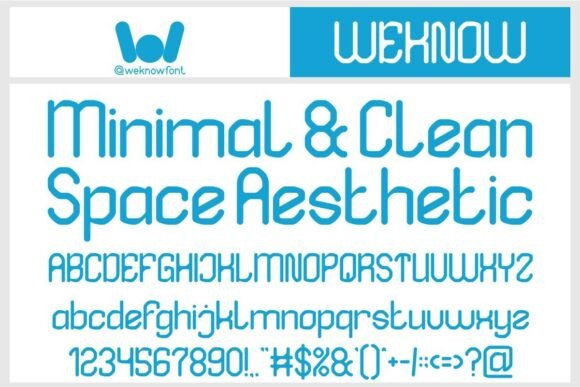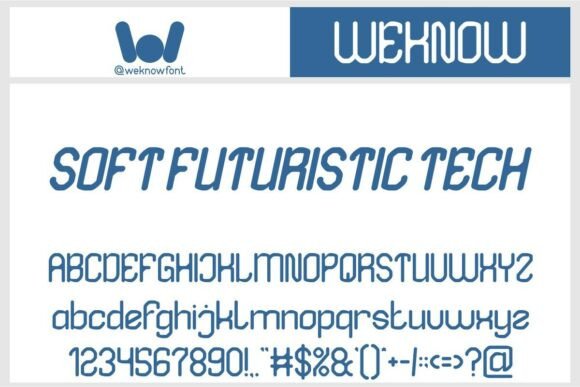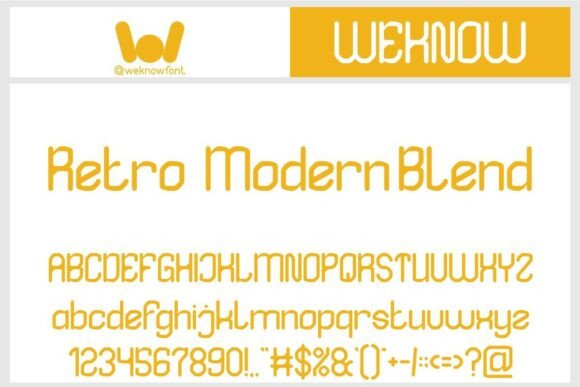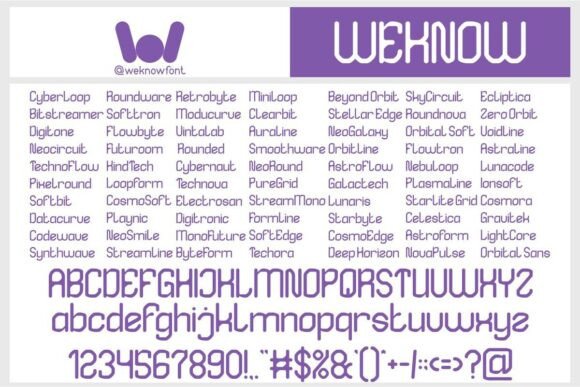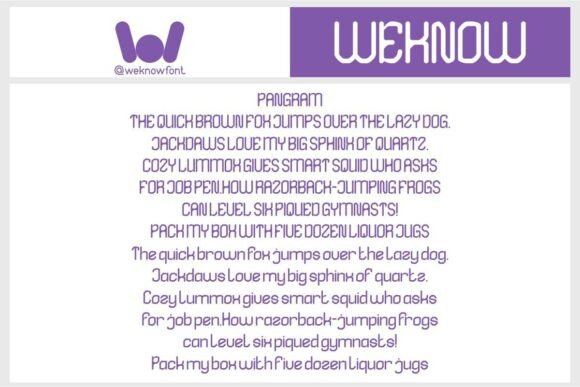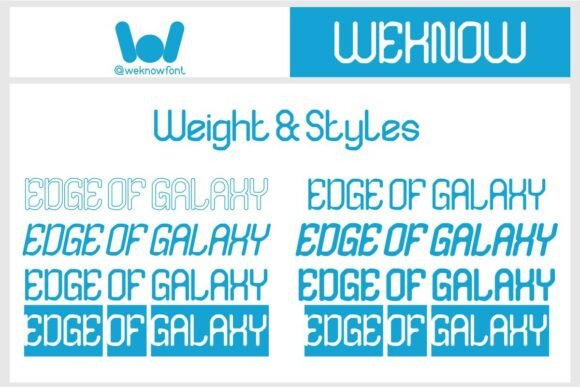
Introduction to Edge of Galaxy Font
Journey to the brink of creativity with Edge of Galaxy, a captivating techno-sci-fi font that transcends time and space.
Uniting the best of both the future and the past, it offers an enthralling blend of modern and retro vibes, perfect for any project that demands a unique and striking touch Whether itโs adorned on a corporate logo, taking center stage in a headline, or defining your brand identity, this display font radiates an inimitable charisma.
Key Features of Edge of Galaxy Font